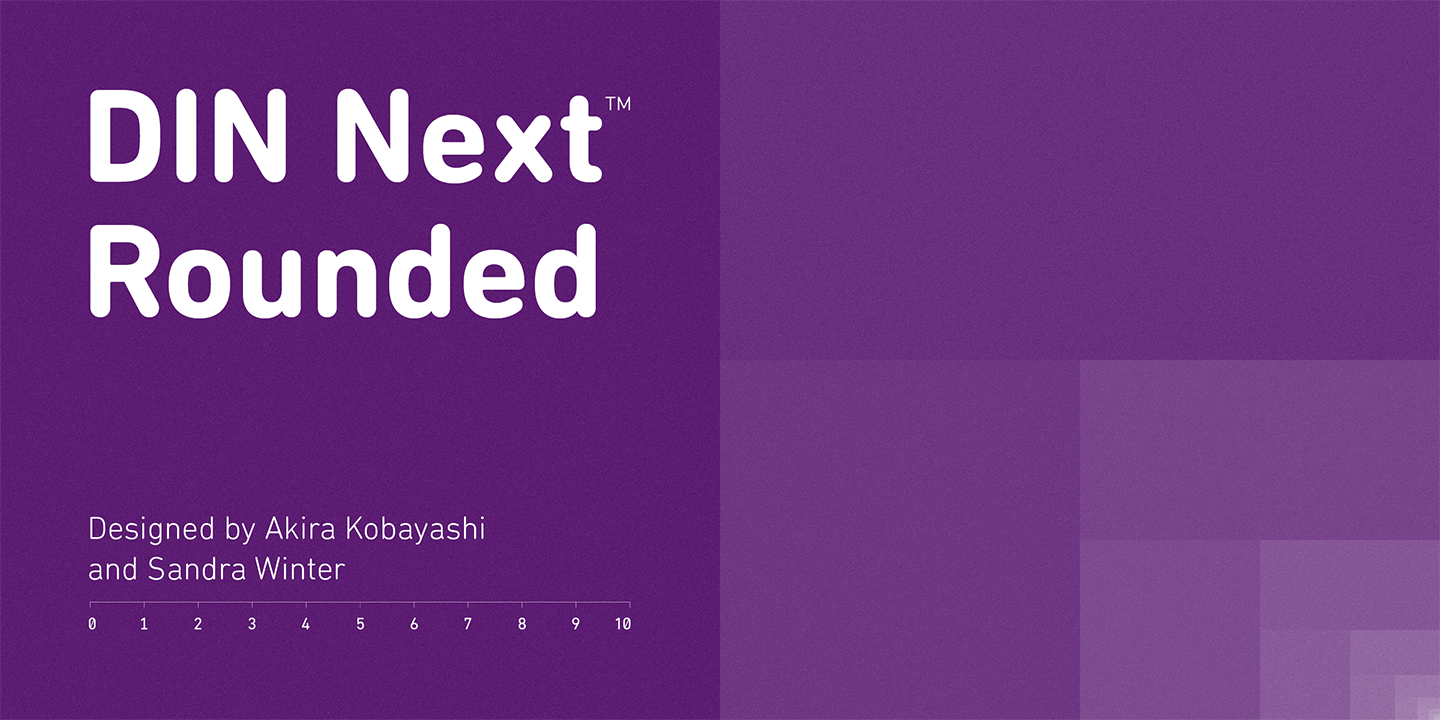
This friendly sans-serif typeface is perfect for children's brands, educational materials, toy packaging, tech startups, mobile apps, healthcare communications, family services, retail signage, and approachable logo design.
DIN Next Rounded Font brings excitement to your design projects with its warm personality and modern approachability. This refined sans-serif font features softened corners and humanized letterforms that maintain the structural integrity of classic DIN while adding friendly warmth, making it perfect for brands that want to appear professional yet accessible. The font's rounded details create immediate visual comfort while ensuring excellent legibility across all communication platforms.
The DIN Next Rounded Font family includes ultra light, light, regular, medium, bold, and black weights, plus their corresponding italic styles. This comprehensive range provides designers with complete flexibility for creating welcoming brand hierarchies that balance professionalism with human connection across diverse applications.
Soften your brand communications with DIN Next Rounded Font Free Download today. This approachable typeface combines geometric precision with human warmth, making it indispensable for modern brands that prioritize user experience. Whether you're designing child-friendly interfaces, creating healthcare materials, or developing inclusive brand systems, this font delivers comforting results with its gentle character and contemporary reliability.
The carefully rounded letterforms ensure consistent friendliness across all touchpoints. Download DIN Next Rounded Font now and add this welcoming typography solution to your design toolkit for projects that need to balance authority with approachability and technical excellence with human connection.